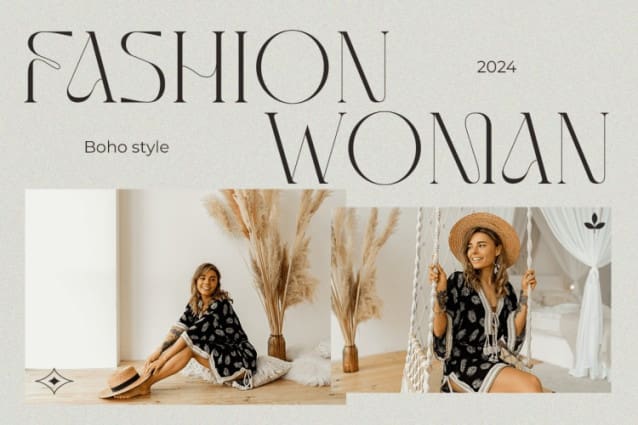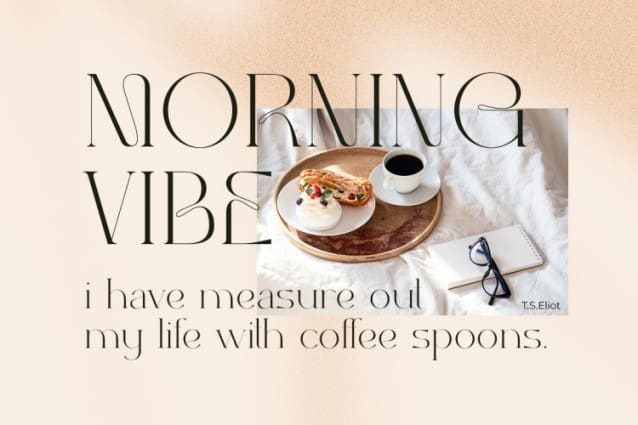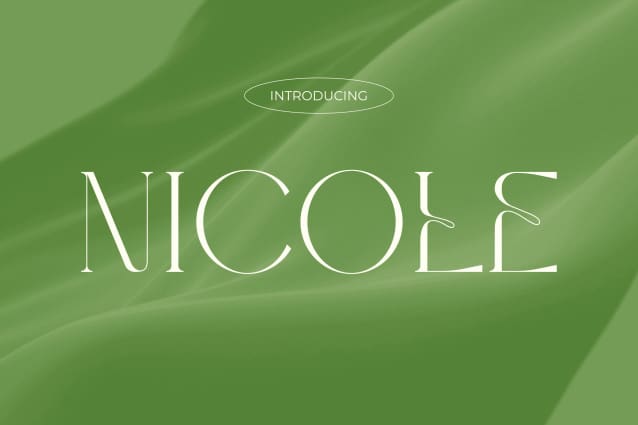
Nicole Font
Nicole Font is a multipurpose serif font family. It encompasses Basic Latin characters (A-Z, a-z), numbers, and punctuation marks, making it suitable for various design applications. Compatible with both PC and Mac systems, CATWALKZ can be easily utilized in popular design software such as Adobe Illustrator, Adobe Photoshop, Adobe InDesign, and even Microsoft Word. Additionally, this font is fully accessible without the need for any additional design software, providing convenience for users across different platforms.